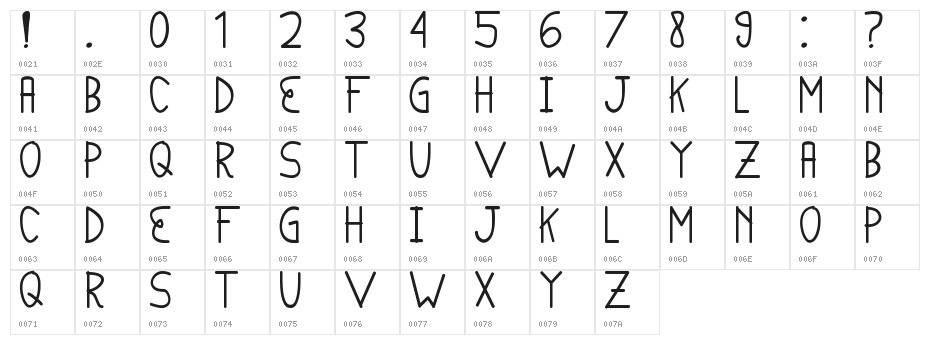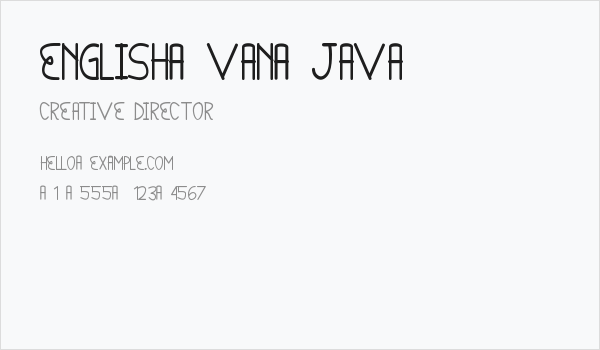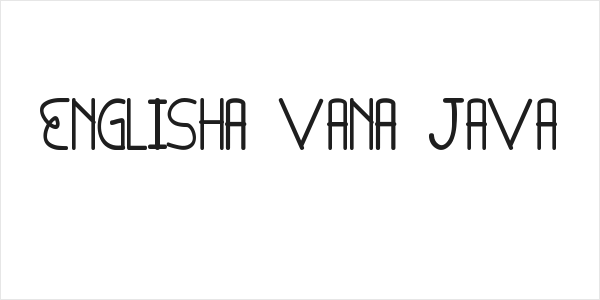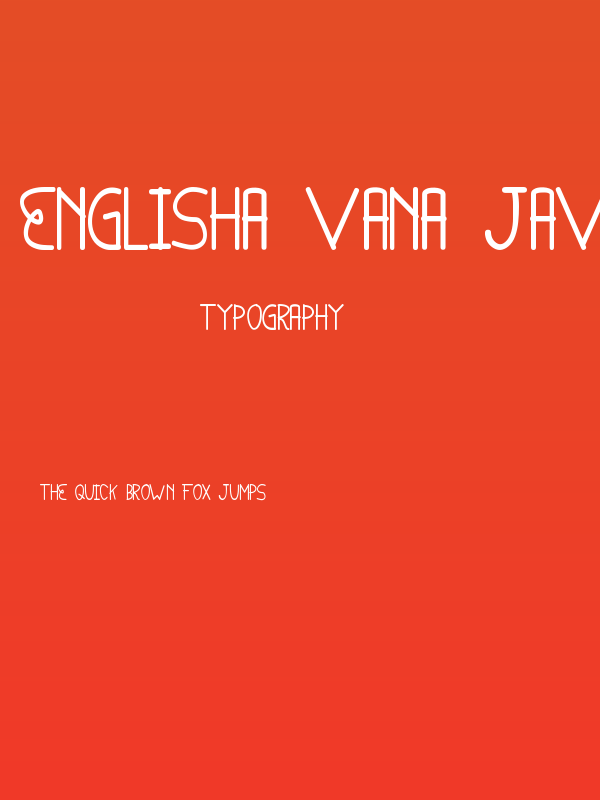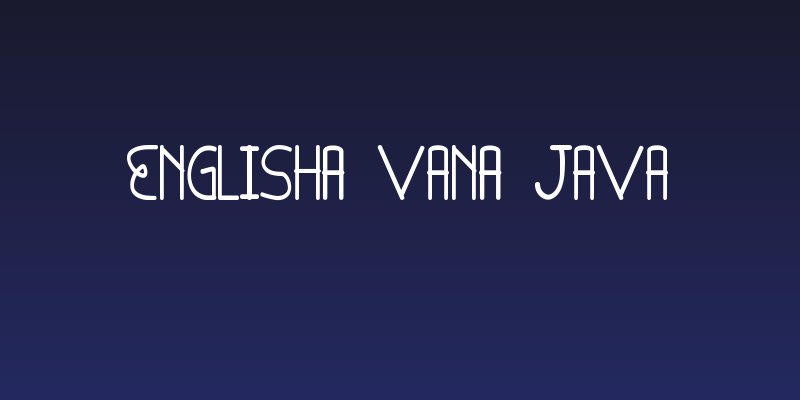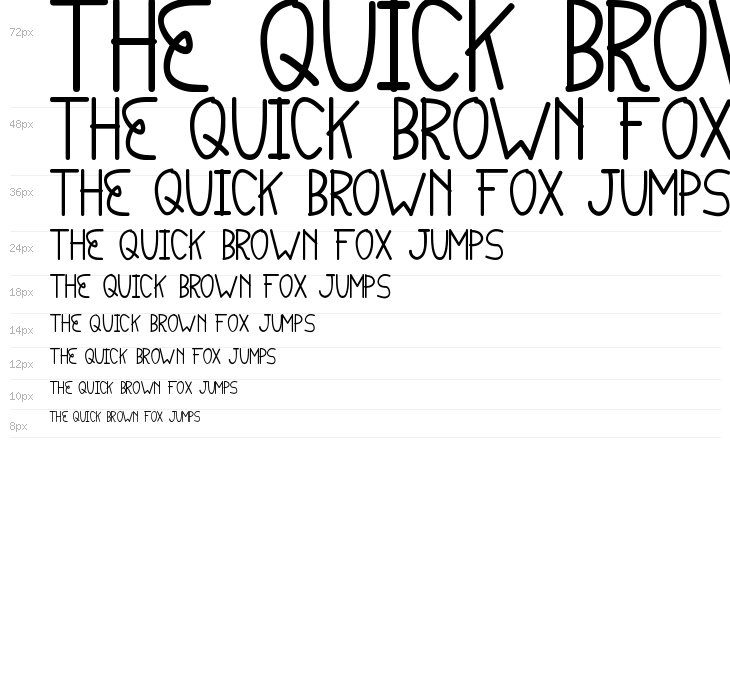
English-van-Java Font
English-van-Java Description
This font features a unique and playful design with rounded edges and a consistent stroke width. The characters are tall and narrow, giving a modern and sleek appearance. The uppercase and lowercase letters maintain a uniform style, with some characters like 'A' and 'V' having distinctive angular cuts. The numerals are bold and easily readable, with a slightly whimsical touch. Special characters are included, maintaining the same playful aesthetic. This font is ideal for projects that require a fun and approachable look while still being clear and legible.
| Proposed Projects | Ideal for children's books, playful branding, posters, and creative digital content. |